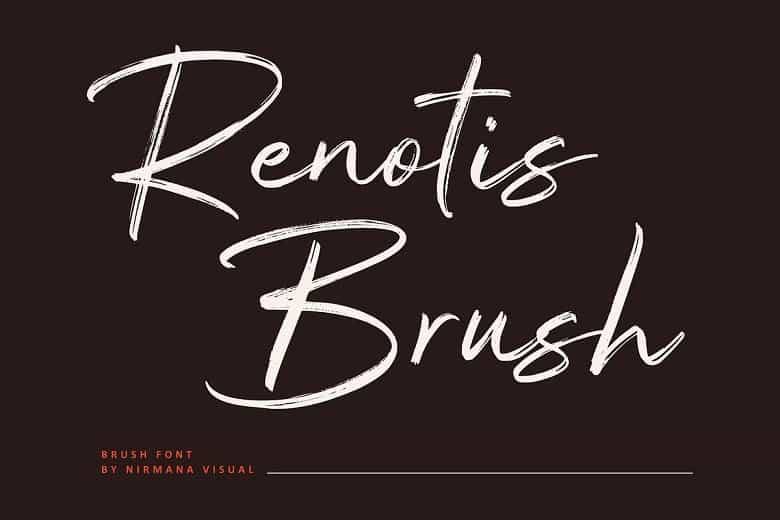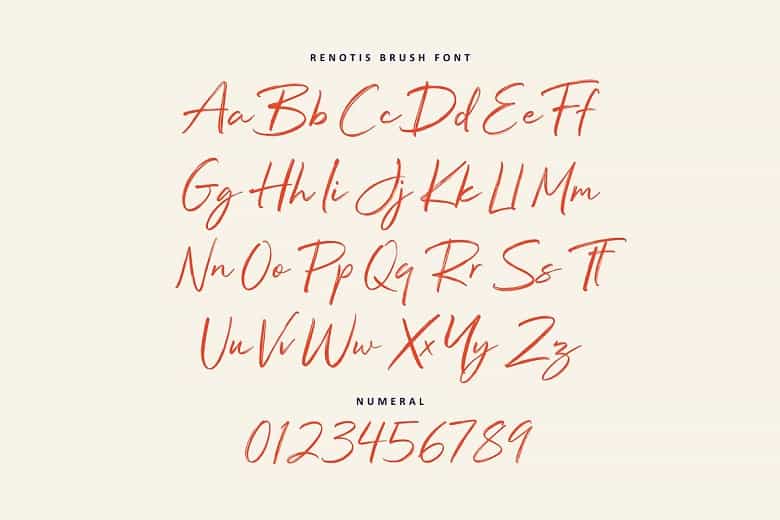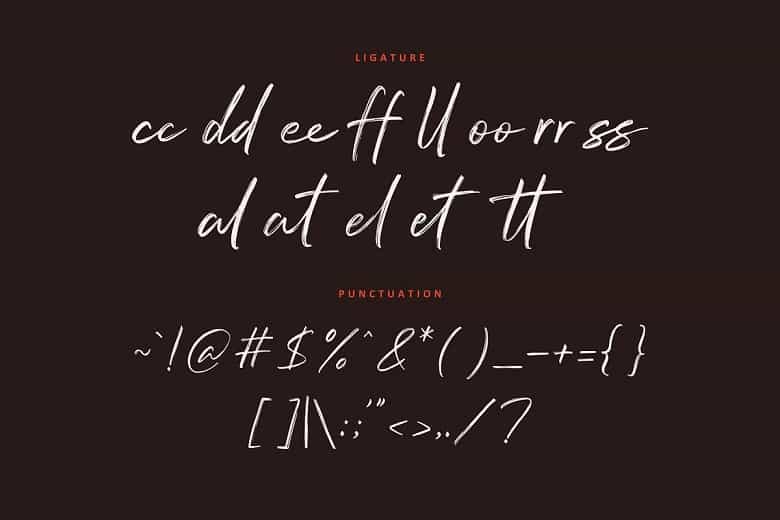
Renotis Brush is a modern brush script font. It’s perfect for creating the most beautiful and harmonious typography for a variety of projects: logos and logo systems, posts in social networks, advertisements and product designs.